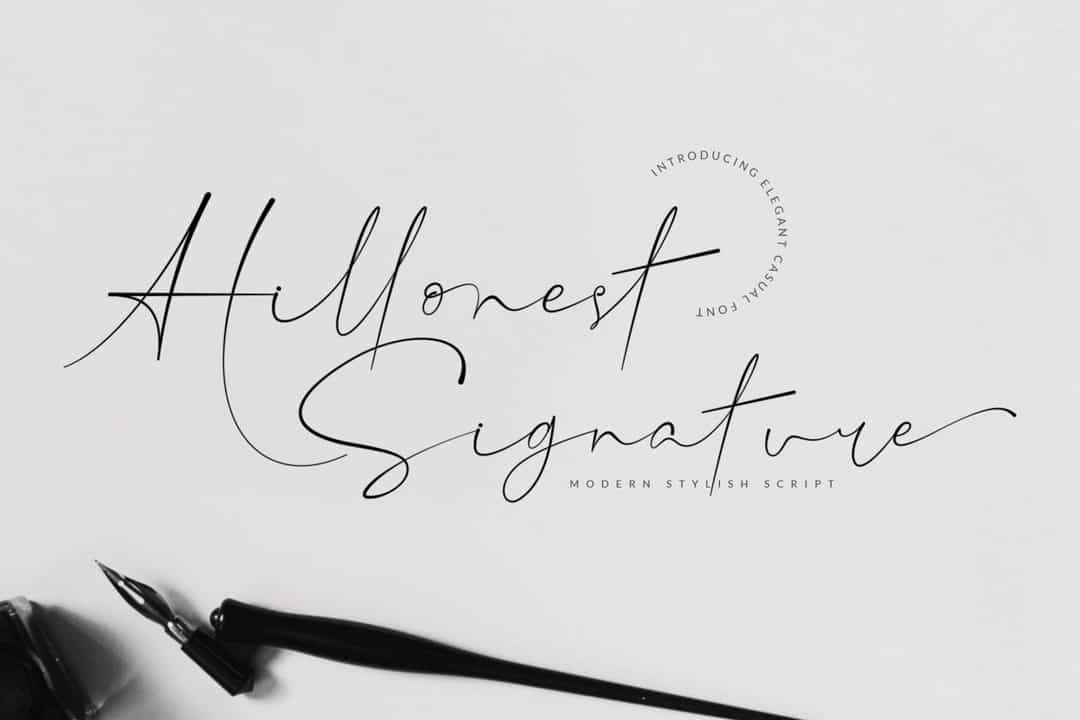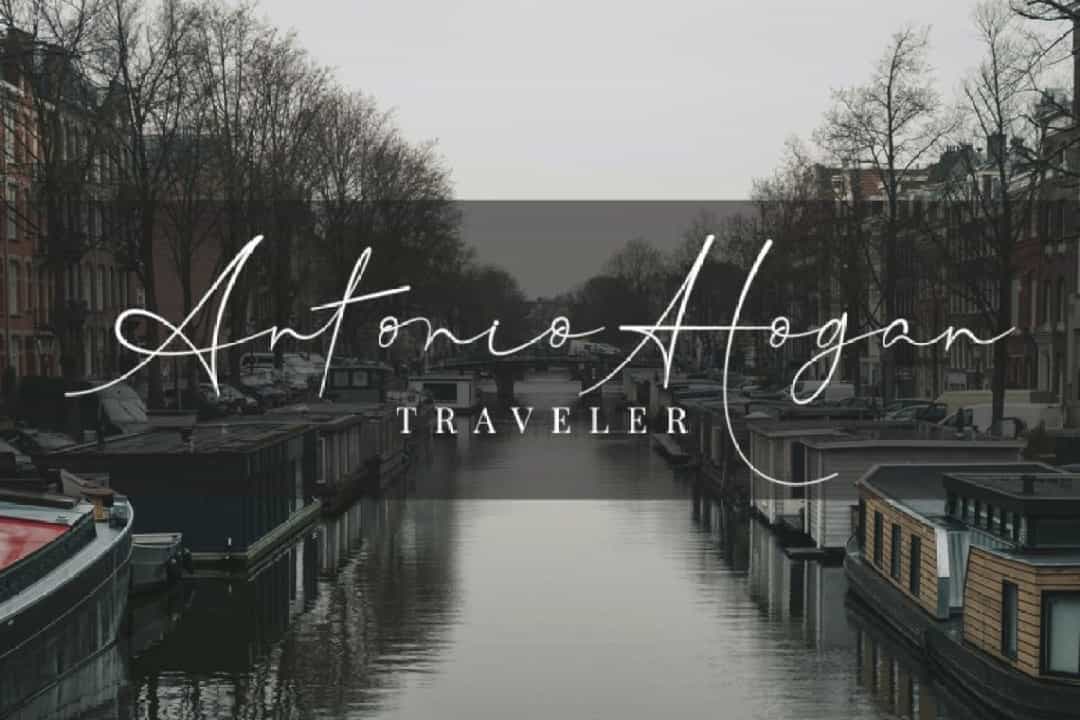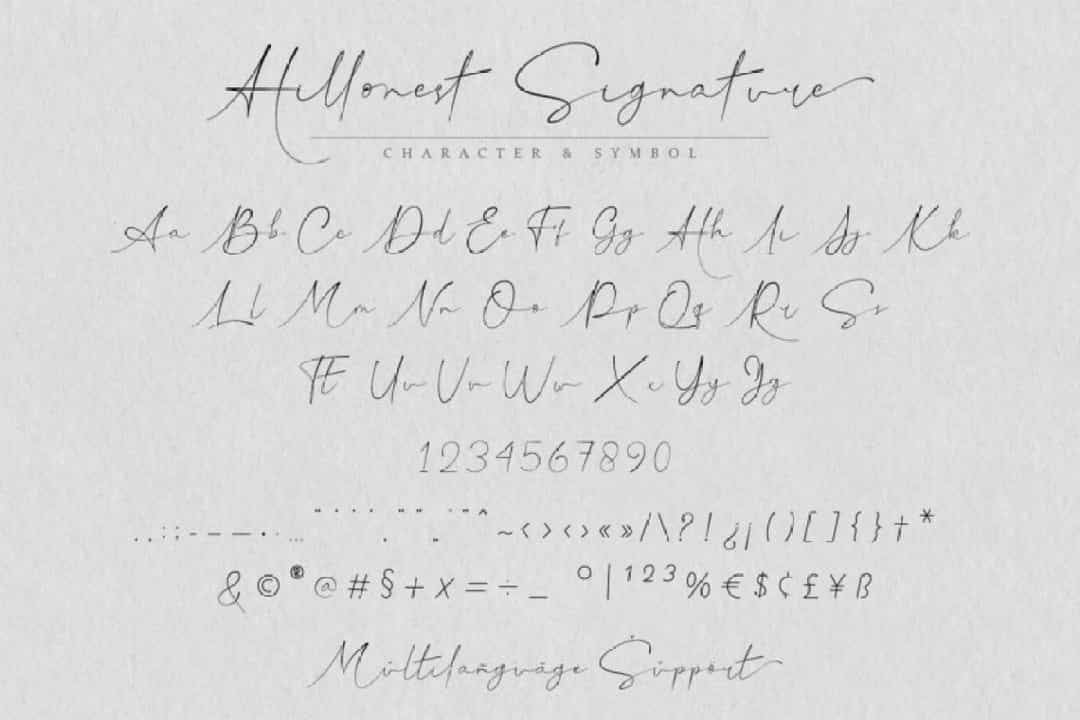
Discover Hillonest Handwritten Signature Font, part of the Handwritten Script collection—a versatile and unique font perfect for adding a personal touch to your projects. Download it for free and enjoy crafting designs with style, from invitations to social media posts. This font is available exclusively for personal use, giving you the freedom to create without limits. Unlock your creativity with Hillonest Handwritten Signature Font today!
Hillonest is a high-quality signature font that can be used for logo and product packaging designs focused on home-related goods. Furthermore, this font can also be used for the packaging of certain products, mugs, quotations bags for shopping, book covers and names, greeting cards, invitation cards, labels, special occasions, and any project that requires a sophisticated handwriting style.